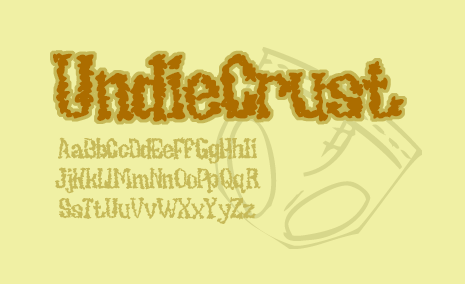
What a nasty font! Right off the heels of such greats as Pornhut and Earwax comes UndieCrust. Where do I come up with these names? I dunno. But one thing's for sure, this font will be used by many a grunge band. Mark my words.